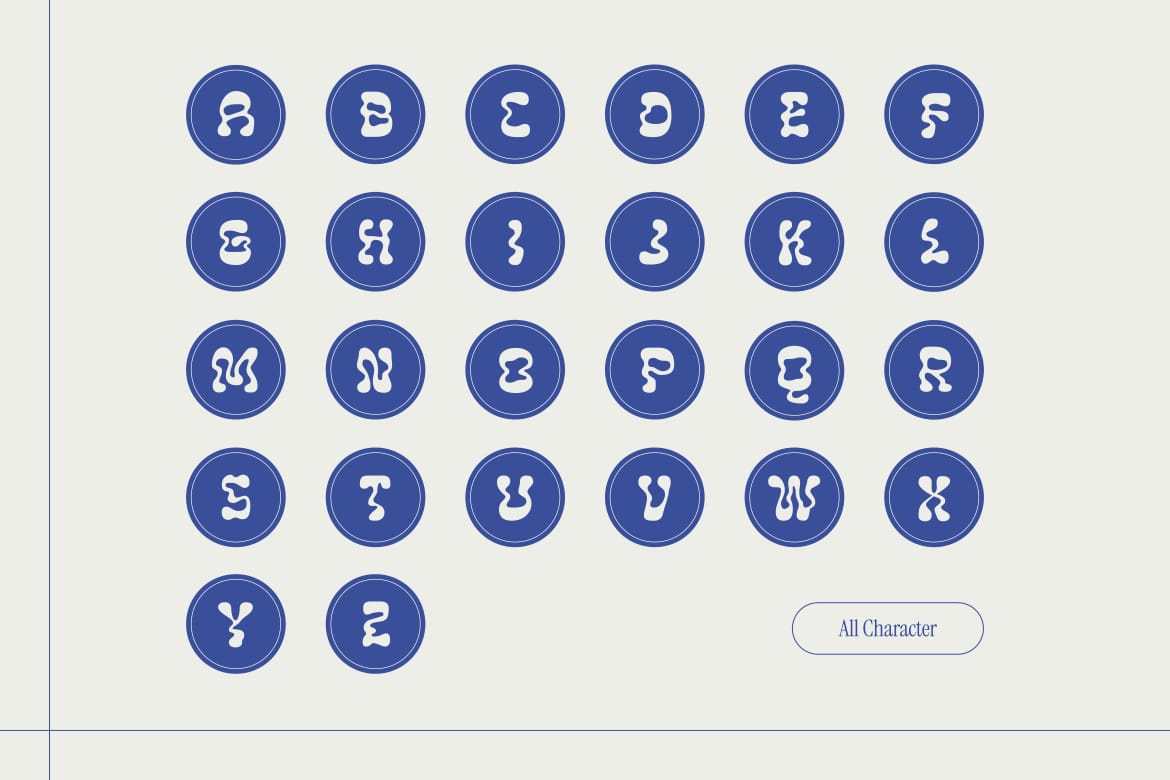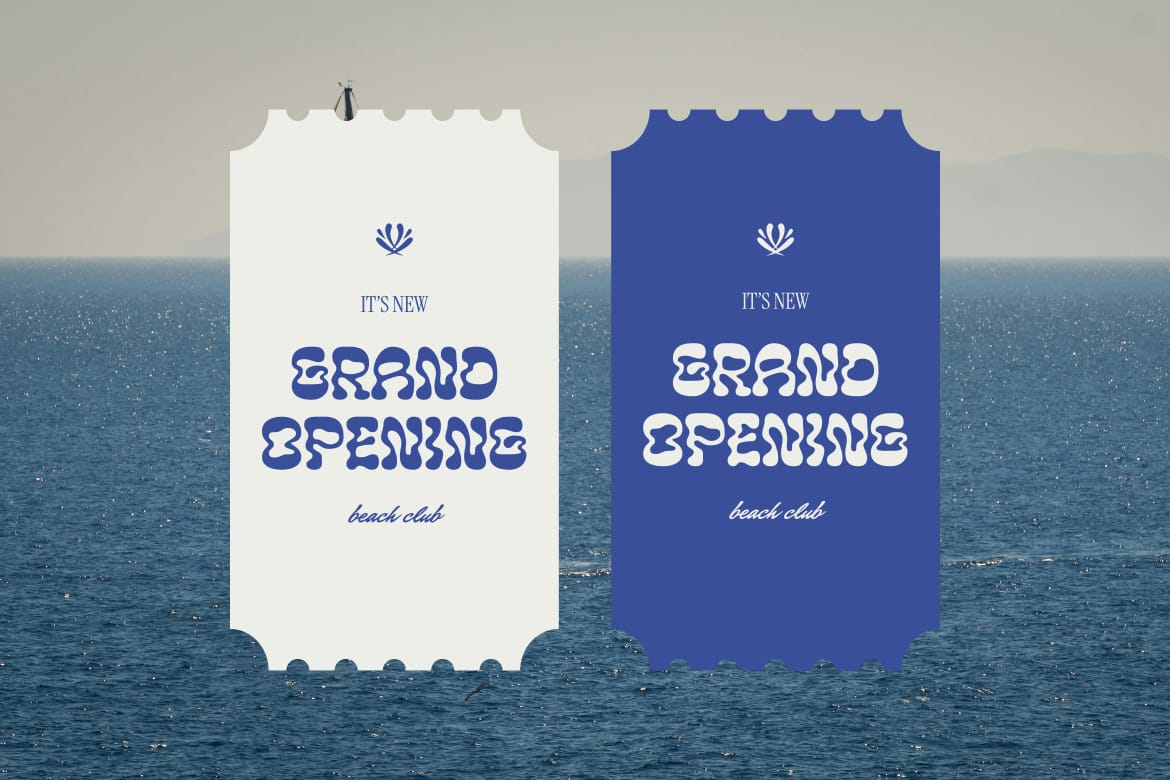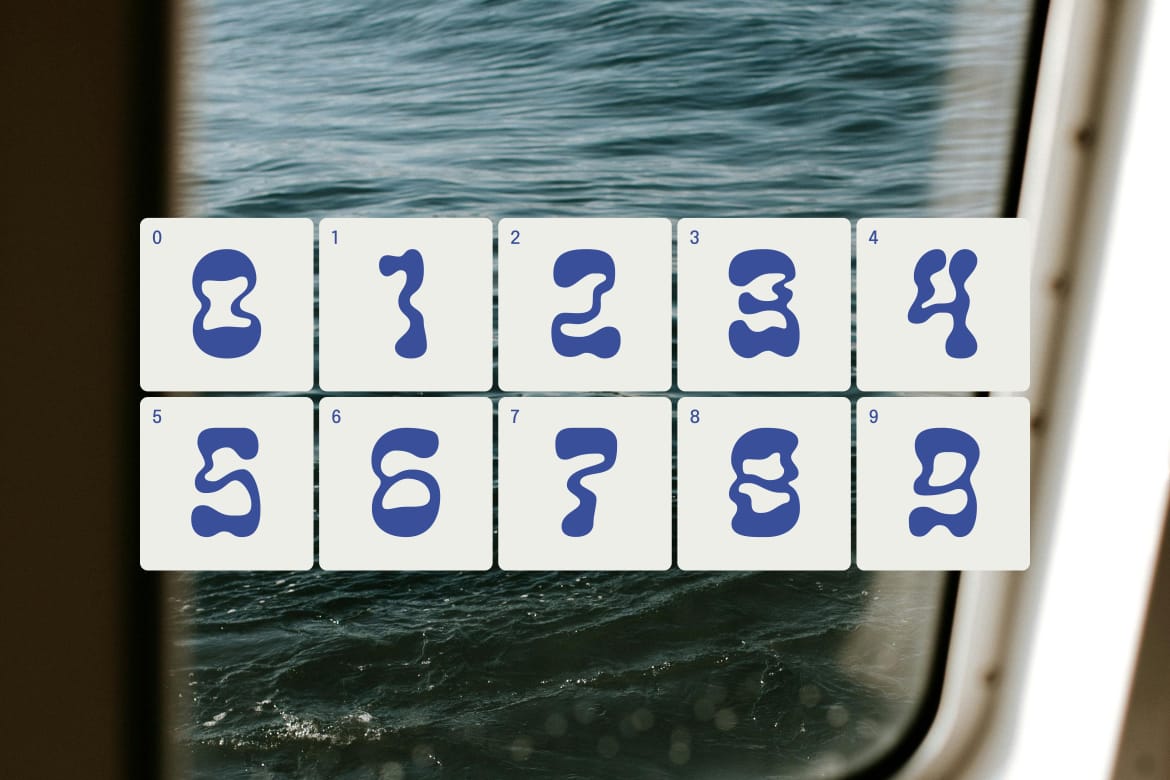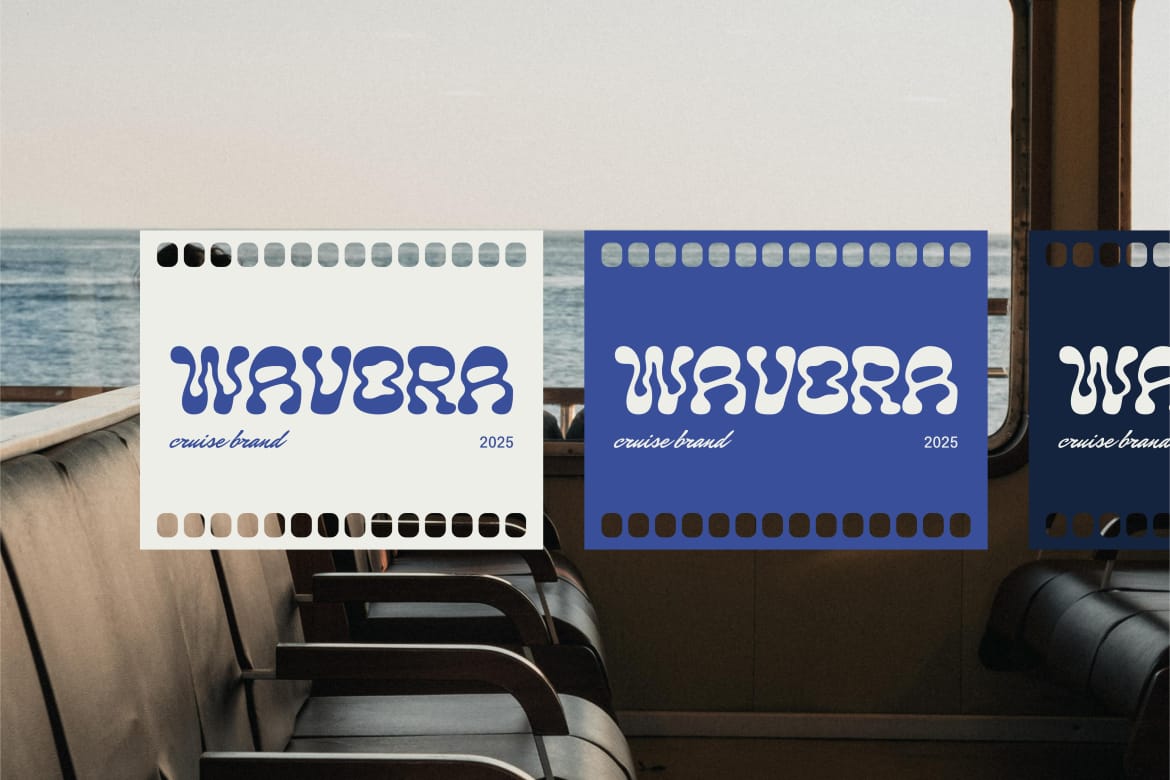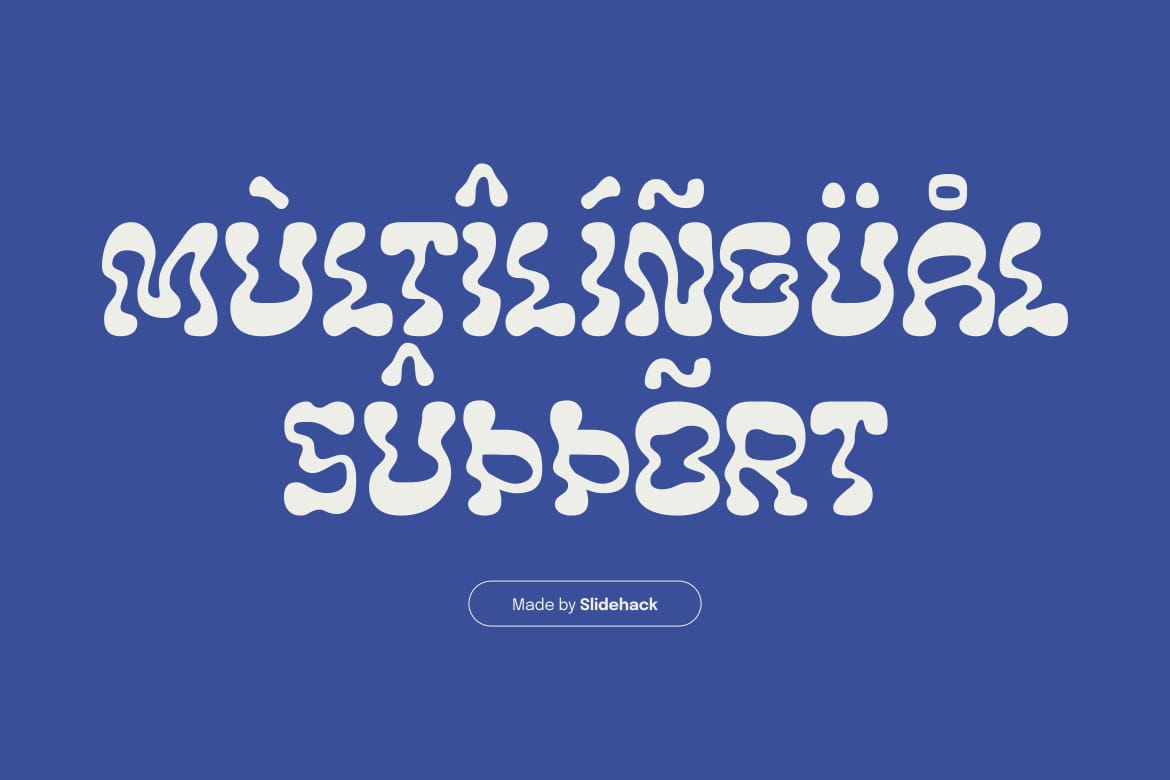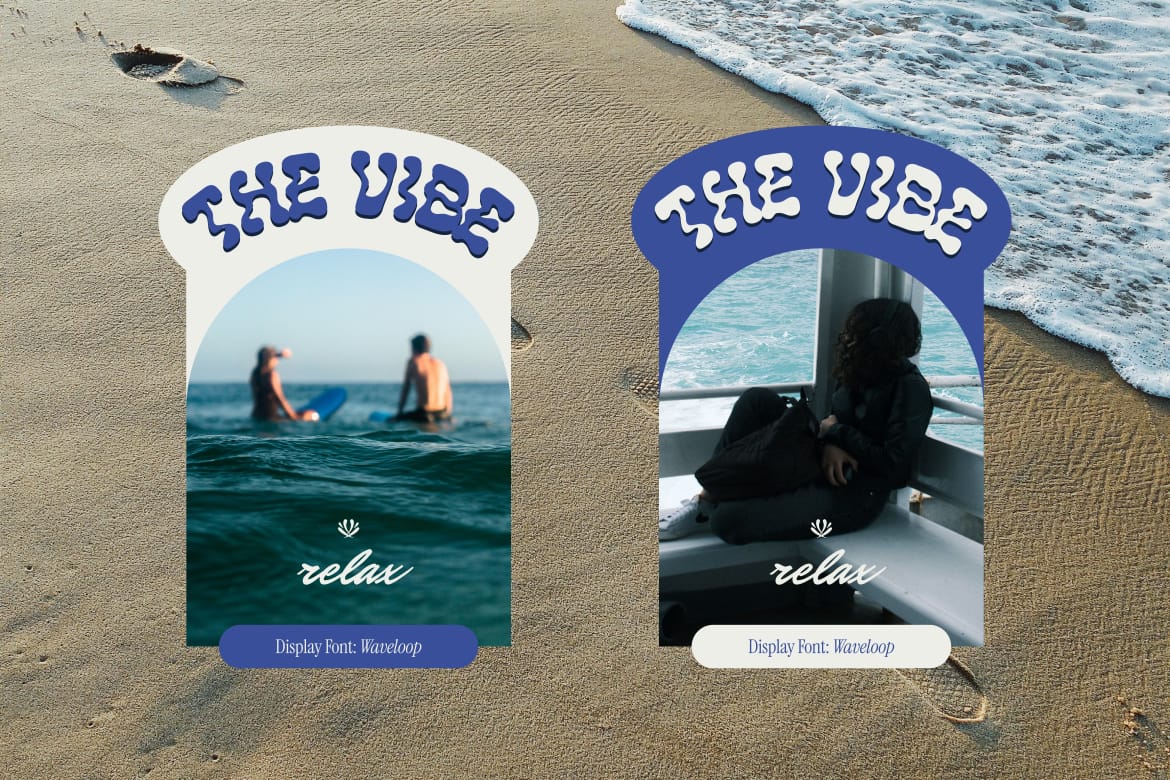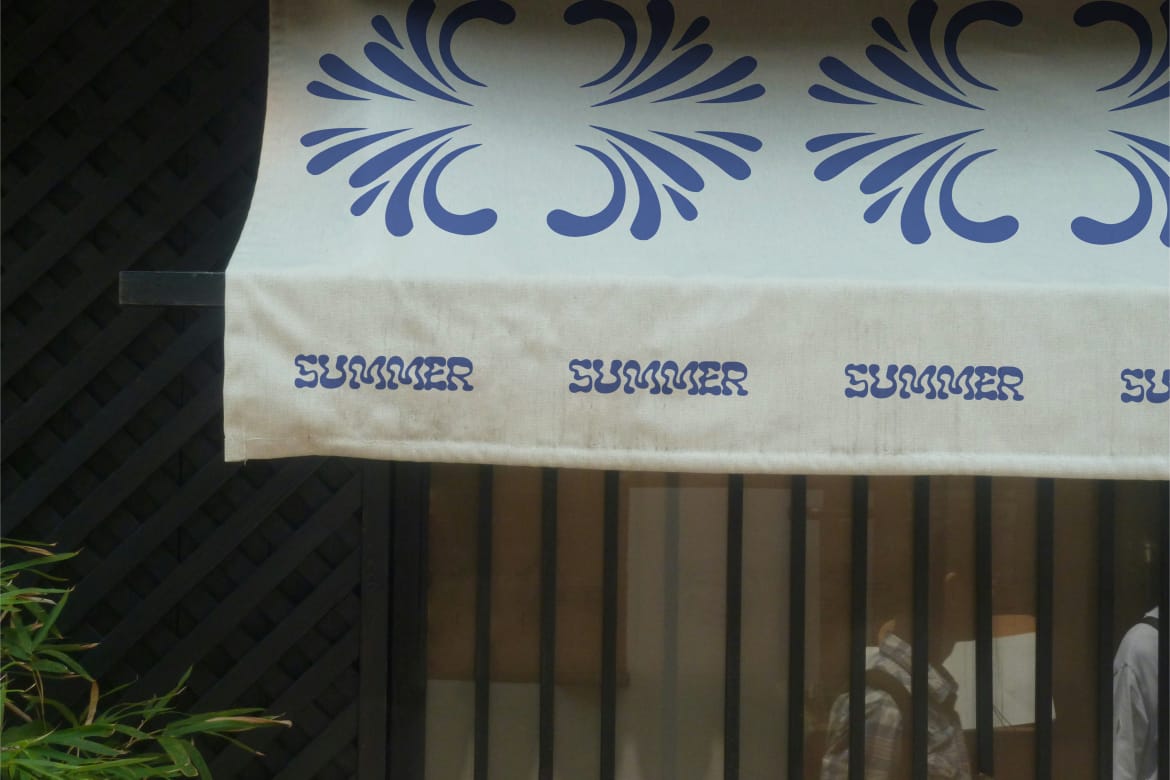
Waveloop
Waveloop is a playful display font featuring fluid, organic letterforms with a modern psychedelic vibe. Perfect for posters, music branding, packaging, fashion, and experimental visuals, this font delivers bold personality and artistic energy. Waveloop creates eye-catching typography with unique curves and groovy aesthetics that stand out across creative design projects.
• Psychedelic liquid display with a bold experimental vibe
• Perfect for music posters, streetwear branding, and retro-inspired creative projects
• Melting organic letterforms create a unique eye-catching personality full of groovy energy